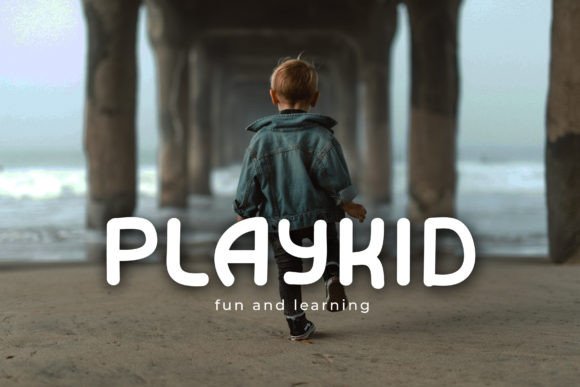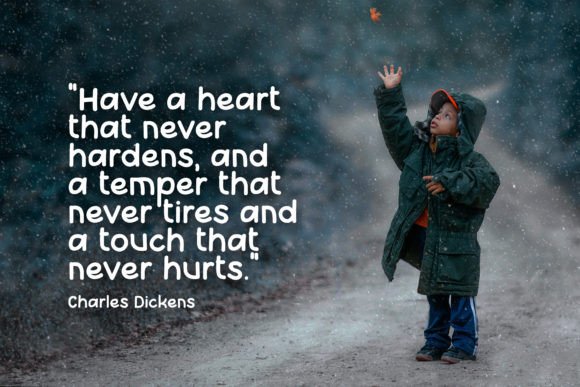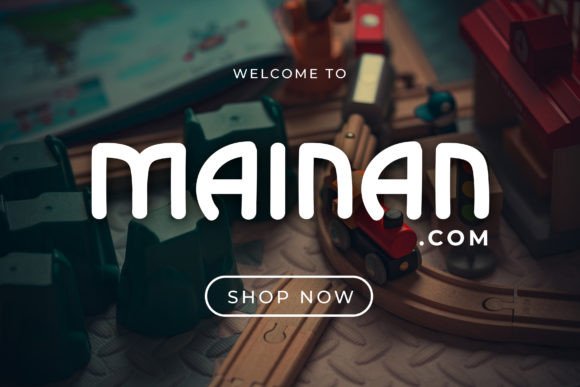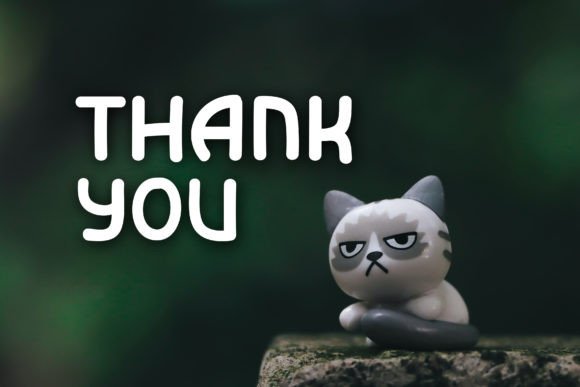
Introducing Agimed Font: Where Creativity Meets Joy
Do you remember that moment when you were brainstorming ideas for your next project and suddenly, a burst of creativity hit you? Everything seemed to fall into place, and your design vision came alive. That’s exactly what the Agimed Font is designed to evoke – a sense of fun and playfulness that sparks imagination in everyone who sees it.
The Agimed Font is a rounded display font perfect for kids, greeting cards, invitations, posters, and so much more. Its cool, rounded shape makes it an ideal choice for designers who want to add a touch of whimsy to their projects. Whether you’re working on a children’s book cover or a website for a family-friendly brand, the Agimed Font is sure to bring a smile to your audience’s faces.
Agimed Font Key Features
- Font Family: Agimed is a sans-serif font family.
- Unique Characteristics: Features a clean, modern design with a distinctive x-height, making it highly legible and suitable for digital and print media.
Agimed Font Review
I recently had the chance to work with Agimed Font, and I must say it’s been an interesting experience. ✨ One thing I really like about Agimed is its unique blend of modern and classic elements. It’s perfect for designers looking for a font that stands out from the crowd.
- ✨ Excellent for titles and headings, Agimed adds a touch of sophistication to any design.
- ✨ The font is highly legible, making it perfect for body text and large blocks of content.
- ✨ Agimed supports a wide range of languages, making it a great choice for international designs.
However, ⚠️ there are a few limitations to consider. Agimed can be a bit too ornate for some designs, and the font weight may not be as consistent as I’d like. Additionally, the font doesn’t include as many styles as some other popular fonts, which can limit its versatility.
Overall, I’d give Agimed Font a solid 3.5 out of 5 stars. While it’s not perfect, it’s definitely a unique and stylish choice for designers looking to add some flair to their work. With a bit more development, I think Agimed could become a top-tier font in the design community.
Montserrat is a sans-serif font designed by Julieta Ulanovsky. It’s a geometric font that works well for body text and headings in urban and modern contexts. Use it for projects that require a strong and edgy look.
Comparison to Agimed Font: Montserrat has a more geometric and industrial look, while Agimed Font has a slightly more elegant and refined feel. Montserrat is also more versatile and works well in a variety of contexts, from web design to print materials.
The Agimed Font includes a comprehensive character set, covering Latin, Cyrillic, and Greek scripts. It also supports a wide range of languages, including English, Spanish, French, German, Italian, Portuguese, Dutch, Russian, and many more. The font’s language support is based on the Unicode Standard, ensuring compatibility with a broad range of languages and scripts.